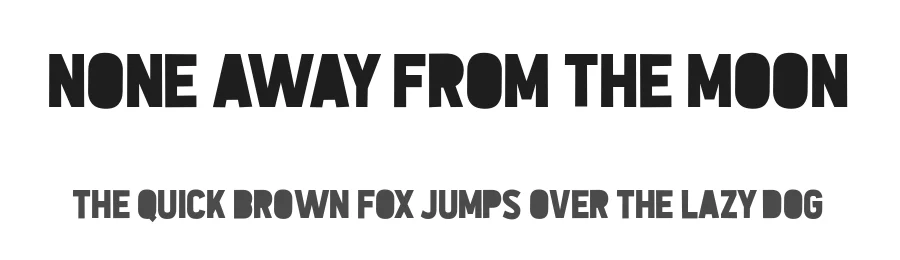
About Refia Font
This is a font designed using a gentle, yet beautiful and elegant hand touch, this font looks very nice to use in the special design projects text and headers friend.
Refia Specifications
| Font Family | Refia |
| Full Name | Refia Bold |
| Glyph Count | 202 glyphs |
| PostScript Name | RefiaBold |
| Designer | rozi |
Refia supports 213 languages.
Refia Font is a versatile sans-serif font that works for both headings and body text. Pair it with a contrasting serif or slab serif font to add visual interest and a clear distinction between titles and body copy.